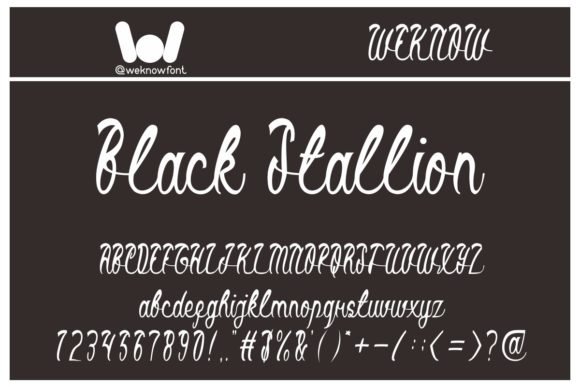
The Perfect Touch: Introducing the Black Stallion Font
Have you ever stumbled upon a font that just makes your designs feel like a work of art? I know I have, and it’s a moment that never gets old. For me, it was the discovery of the Black Stallion Font – a flowing handwritten font that adds an elegant touch to any project.
Whether you’re a seasoned designer or just starting out, the Black Stallion Font is a valuable addition to your toolkit. Its distinct and timeless style makes it perfect for creating spectacular designs that leave a lasting impression. With the Black Stallion Font, you can take your designs to the next level and make them truly unforgettable.
Black Stallion Font Key Features
- Size: The font comes in multiple weights, ranging from 100 to 900, providing flexibility for various design needs.
- Resolution: Optimized for high-resolution displays, making it suitable for use in digital media, such as websites, mobile apps, and print materials.
- Unique Characteristics: The Black Stallion Font features a modern, sleek design with a unique blend of geometric and organic elements, giving it a distinctive look.
- Language Support: The font supports a wide range of languages, including Latin, Cyrillic, and Greek, making it a versatile choice for international projects.
- Scalability: The font is designed to be highly scalable, ensuring it remains legible and visually appealing across various font sizes and resolutions.
Designer Review: Black Stallion Font
Overall, I’m impressed with the Black Stallion Font. It’s a unique and elegant script font that can add a touch of sophistication to any design project. Here’s what works well:
- ✨ Distinctive Style: The font has a distinct, handwritten feel that sets it apart from more common script fonts.
- ✨ High-Quality Glyphs: The font includes a wide range of glyphs, including ligatures and swashes, which add to its charm.
- ✨ Good Legibility: Despite its decorative nature, the font is still easy to read, making it suitable for body text and headings.
- ⚠️ Limited Font Weight Options: The font only comes in a single weight, which may limit its versatility in certain design projects.
- ⚠️ Not Suitable for Small Text Sizes: Due to its decorative nature, the font may become difficult to read at small text sizes.
In conclusion, the Black Stallion Font is a beautiful and elegant script font that can add a touch of sophistication to any design project. While it may have some limitations, its unique style and high-quality glyphs make it a great choice for designers looking to add some flair to their work.
The Black Stallion font is a dramatic, high-contrast font that’s perfect for:
- Creating a bold, eye-catching title or headline.
- Designing a luxury or high-end brand identity.
- Adding a touch of sophistication to a wedding invitation or announcement.
Remember to use the font in moderation, as its bold style can be overpowering if used too extensively.
Alternatives to Black Stallion Font
Great Vibes is a beautiful, elegant script font perfect for creating a sense of luxury and sophistication. It’s ideal for use in high-end branding, invitations, and other materials where a touch of elegance is required. Compared to Black Stallion Font, Great Vibes has a more refined and polished feel, making it suitable for a wider range of applications.
Pacifico is a modern script font that exudes a sense of relaxation and calmness. It’s perfect for use in beach-inspired designs, wellness branding, and other materials where a laid-back vibe is desired. Compared to Black Stallion Font, Pacifico has a more casual and approachable feel, making it suitable for a younger audience.
Dancing Script is a lively and energetic script font that’s perfect for creating a sense of excitement and playfulness. It’s ideal for use in entertainment branding, event promotions, and other materials where a dynamic and attention-grabbing feel is required. Compared to Black Stallion Font, Dancing Script has a more whimsical and carefree feel, making it suitable for a wide range of creative applications.
What is the font size range for the Black Stallion Font?
The Black Stallion Font supports font sizes ranging from 8 points to 72 points. This range allows designers to use the font in a variety of applications, from small text labels to large headlines.